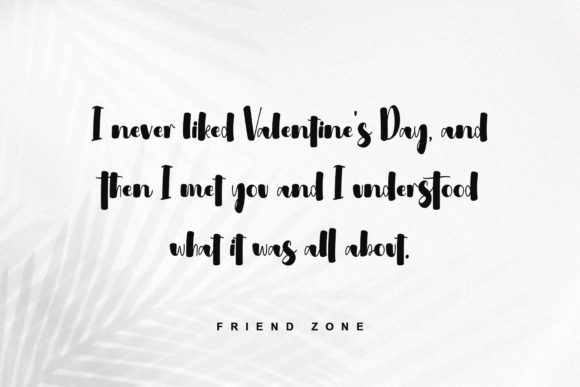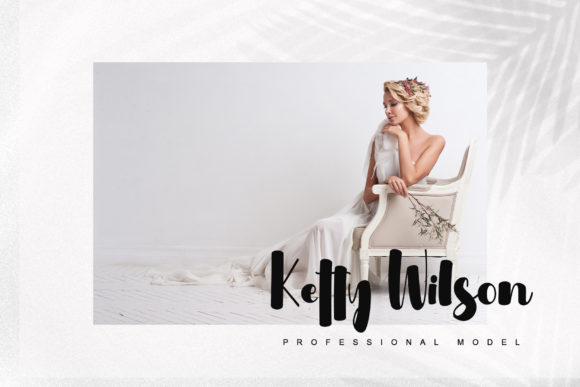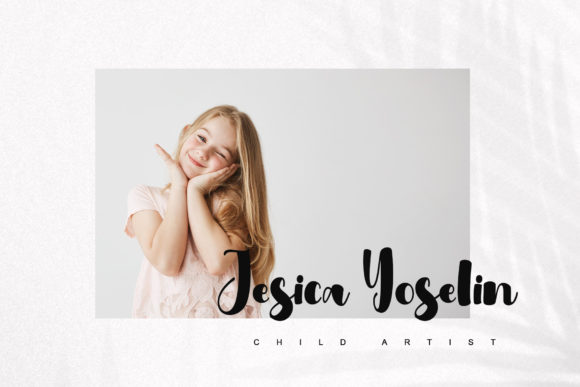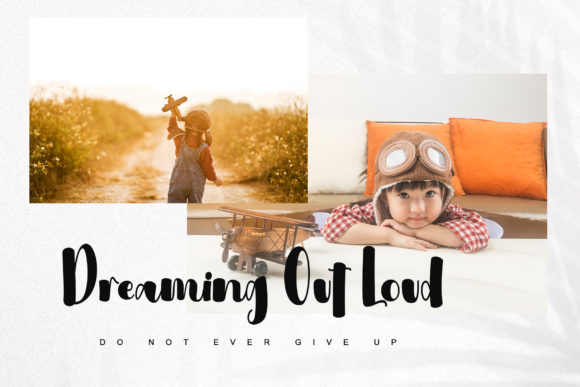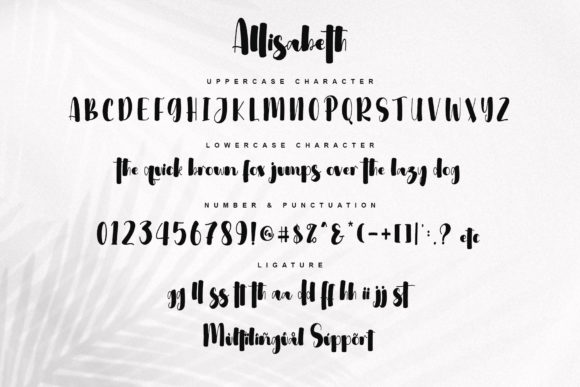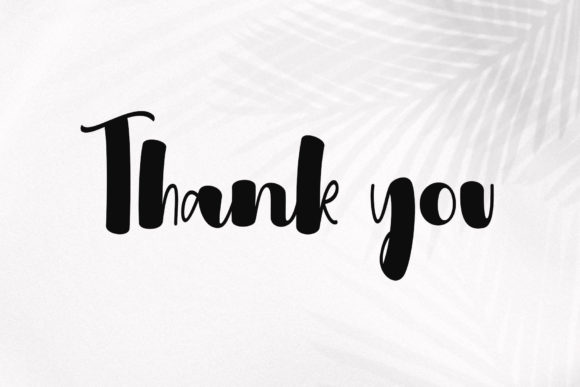
Allisabeth Font
About Allisabeth Font
Allisabeth is a bold script font that is simple and unique looking. Its casual charm makes it appear wonderfully down-to-earth, readable, and, ultimately, incredibly versatile. This will add a fun and friendly touch to any of your projects!